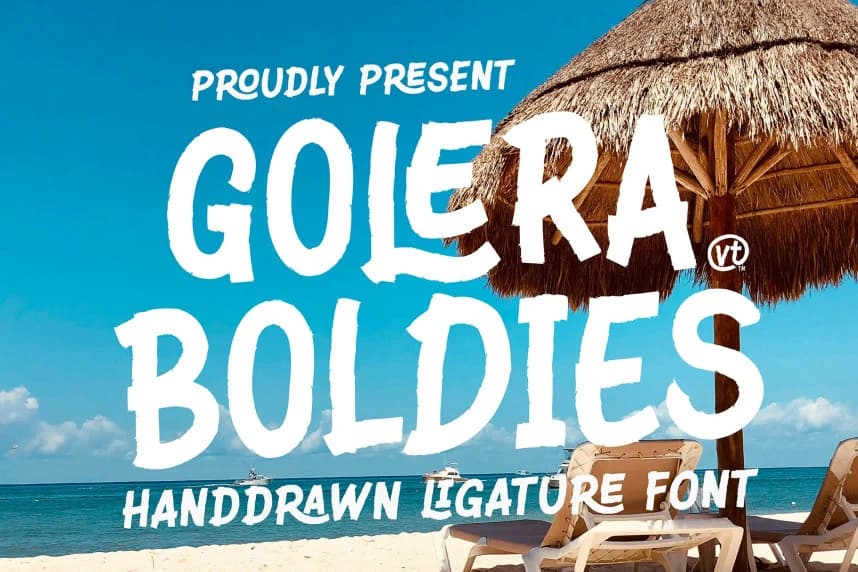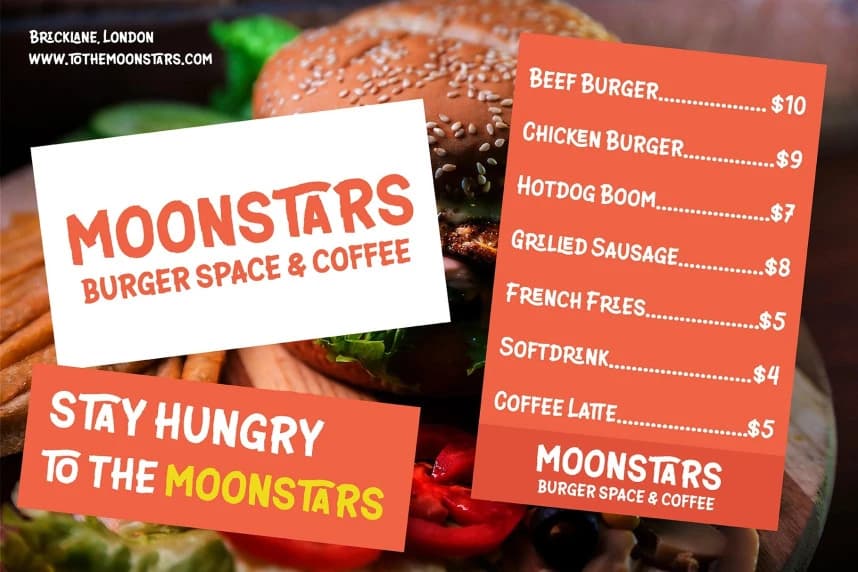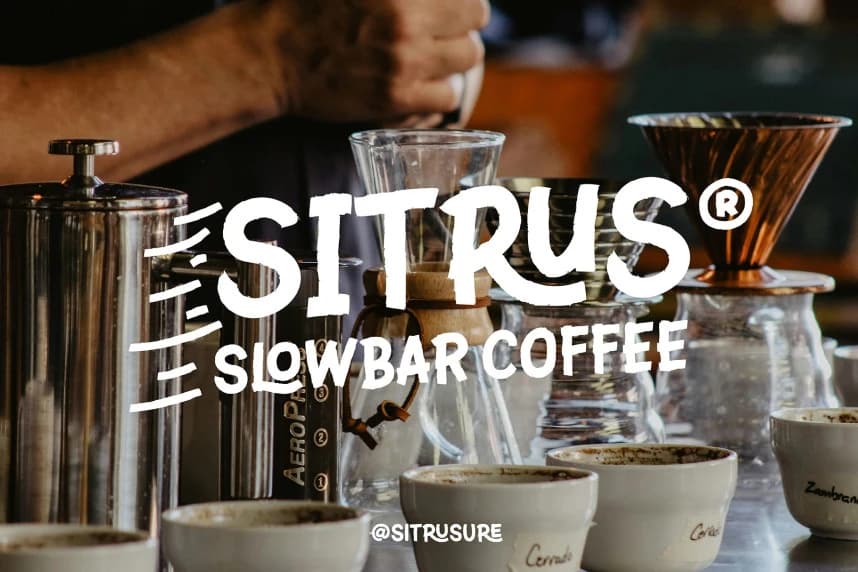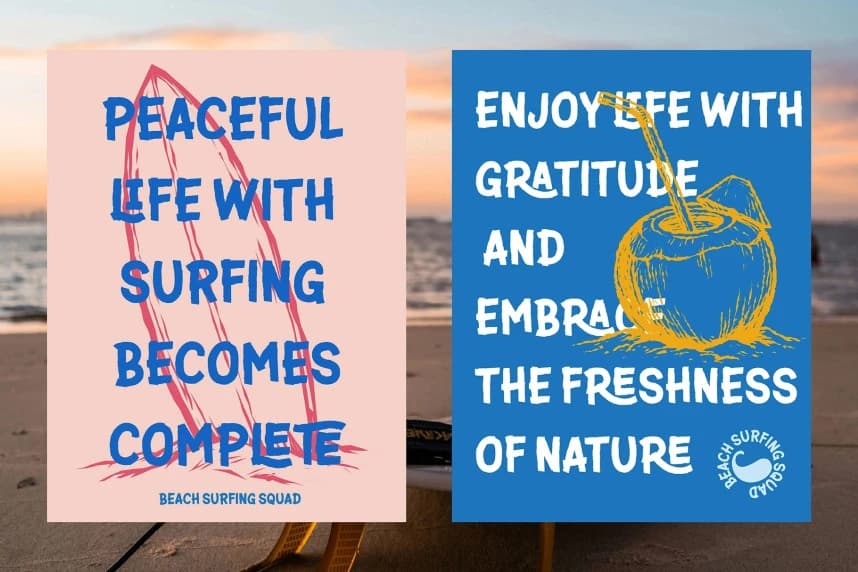
Golera Freebies Font
Golera Boldies Font, a unique handrawn sans serif font crafted to bring a natural, organic feel into your design projects. This font captures the essence of authentic hand-drawn strokes, carefully designed to mimic real handwriting with subtle imperfections, making every letter feel alive and expres
Golera Boldies Font, a unique handrawn sans serif font crafted to bring a natural, organic feel into your design projects. This font captures the essence of authentic hand-drawn strokes, carefully designed to mimic real handwriting with subtle imperfections, making every letter feel alive and expressive.